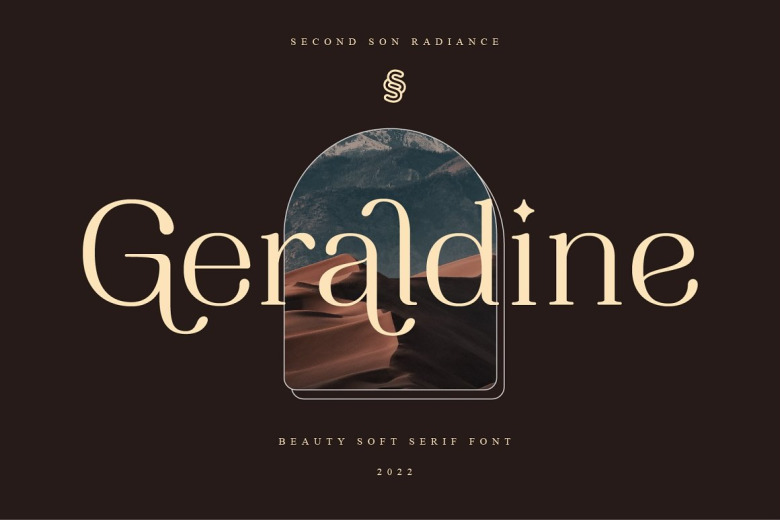
Geraldine Font
Geraldine is a beauty modern soft serif font with alternatives, ligatures and multilingual support. Ideal for editorial projects, branding, clothing design or packaging videos on products and magazines that need a more street elegant look. Or even to use it as a cool text overlay in any background image.
Geraldine Serif Font